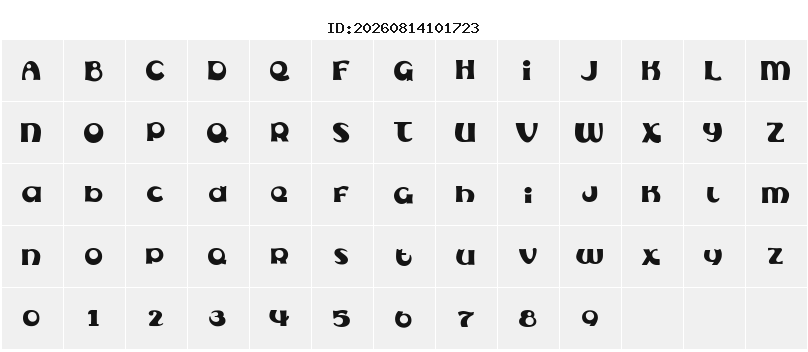
Subelair Preview
• Font Name: Subelair
• Full Font Name: Subelair
• PostScript Name: Subelair
• Character Count: 198
• Manufacturer: subtitude foundry,
About Subelair.ttf
Subelair.ttf is a modern, elegant sans-serif font designed for ultimate readability and visual harmony. Perfect for branding, headlines, web design, and print materials.